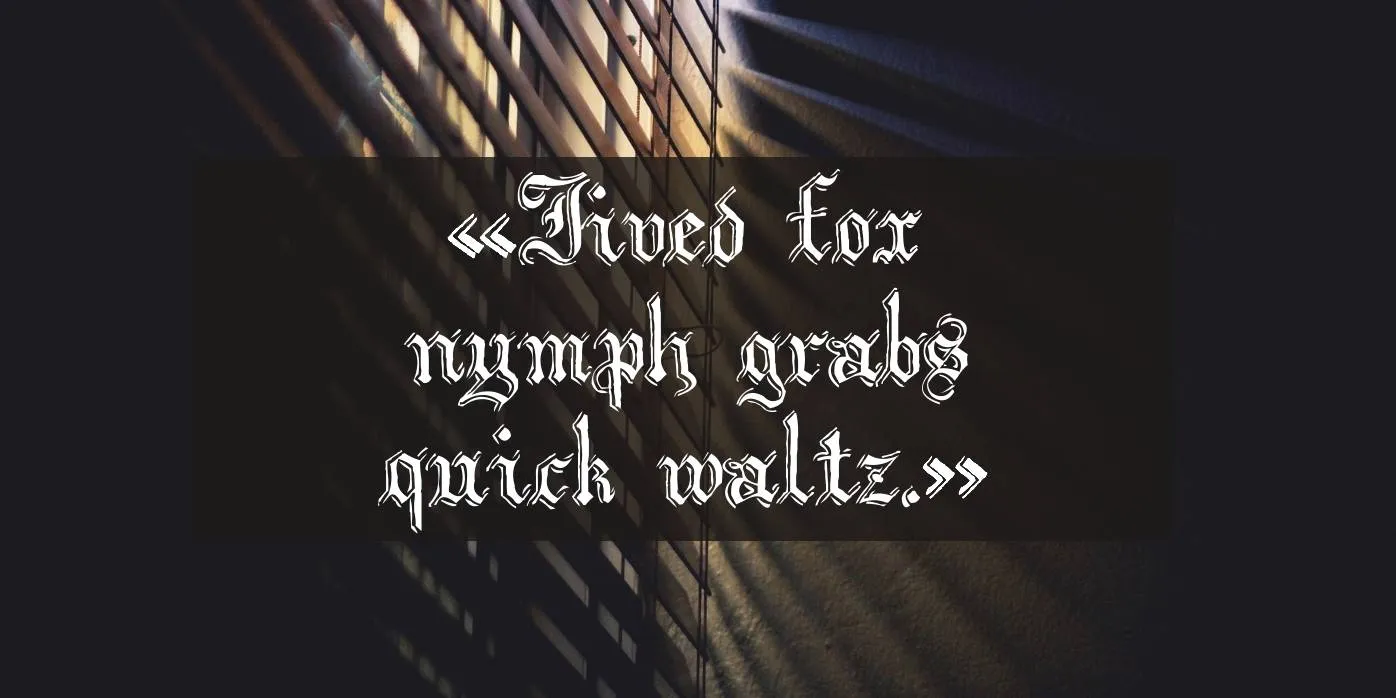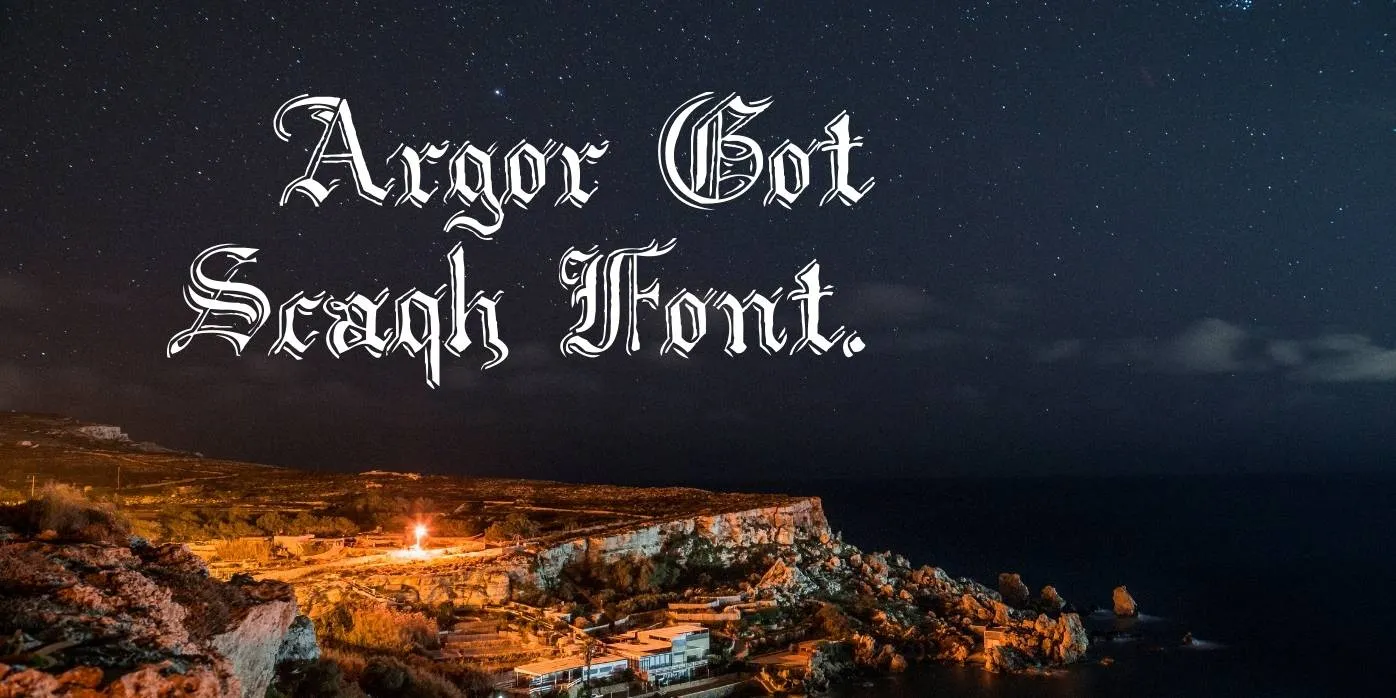
Argor Got Scaqh Font
Argor Got Scaqh Font is a very attractive typeface that was designed by famous designer Argor. This font belongs to the decorative typeface. This great font family has 8 variants and was published by Argor Fonts Foundry. This font is mostly best for creating beautiful logos, headlines, banners, and even comics because of its unique design and attractive style.
If you wish for such a classic font in your designs surely you can use this classic typeface. This typeface is famous due to its advanced features and beautiful, eye-catching design. Stay Alive Font is famous similar to this typeface. It is specified by CSS Family.  This font has Unique Pixel.
If you wish for a great font to create your business card designs, this awesome Font is a good choice, as well as if you’re looking to create headers and titles for your typography-based projects. This font will give an artistic touch to your project.